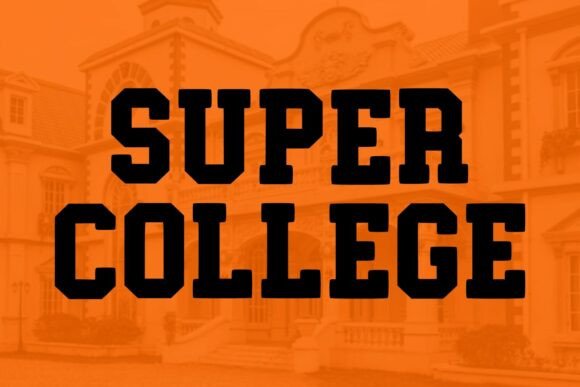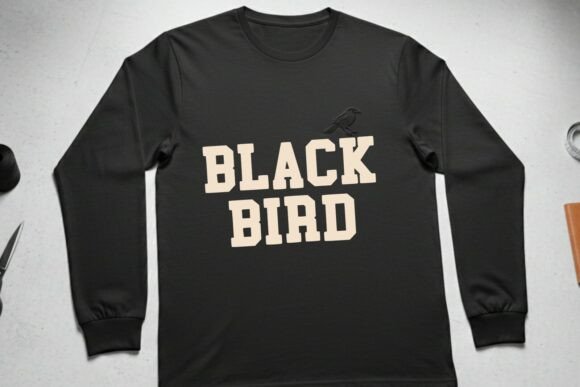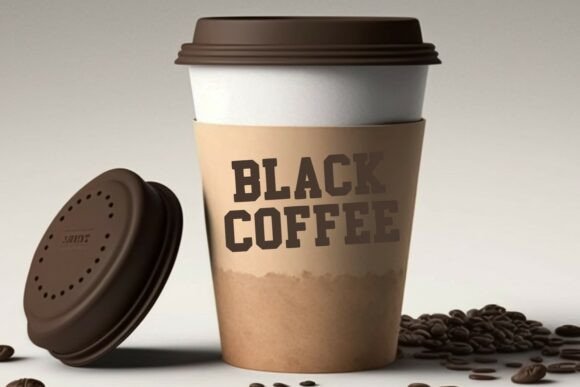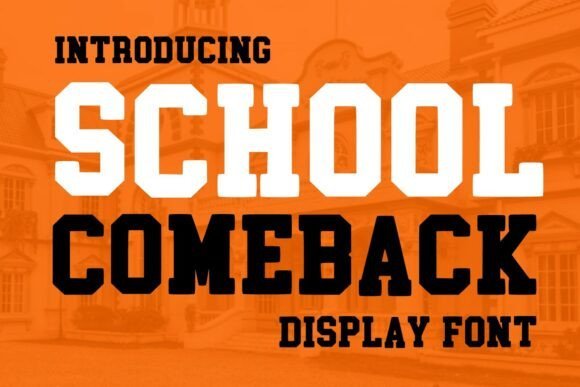
Introduction to School Come Back Font
School Comeback is a bold varsity-style display font inspired by classic collegiate lettering.
With strong block shapes and a sporty academic feel, this typeface is ideal for school-themed designs, team branding, posters, logos, jerseys, banners, and merchandise Perfect for projects that need a confident, energetic, and timeless campus aesthetic.